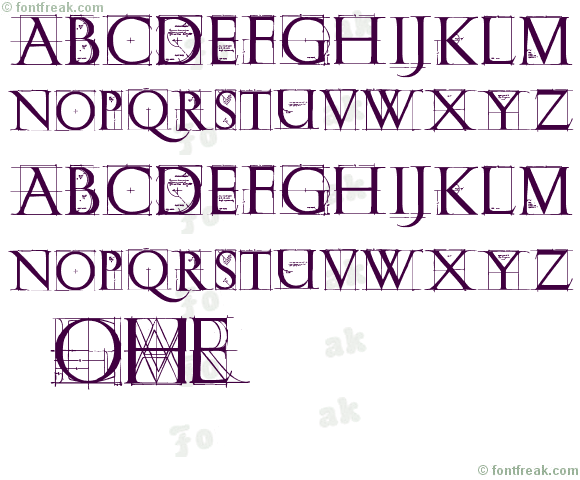
RomanGridCaps
About RomanGridCaps
RomanGridCaps is a distinctive display font designed by Manfred Klein, characterized by its unique structural elements and artistic flair. This font falls under the category of decorative typography, making it a striking choice for projects that require visual impact. The letterforms are crafted with a combination of bold strokes and intricate details, offering a balanced contrast that draws the eye. The spacing is thoughtfully arranged, allowing for easy readability while enhancing its visual appeal. The decorative elements of RomanGridCaps, such as the stylized serifs and geometric shapes, add an artistic touch that sets it apart from standard typefaces.
This font is ideal for a variety of creative applications. It shines in wedding invitations, where its elegance can convey a sense of celebration and formality. Additionally, RomanGridCaps can be effectively utilized in movie posters, where its bold presence can capture attention and evoke curiosity. Restaurant menus can also benefit from this font, as it provides a unique flair that enhances the dining experience. Graphic designers and content creators seeking to make a statement will find this font particularly appealing, as it allows for creative expression and distinctive branding.